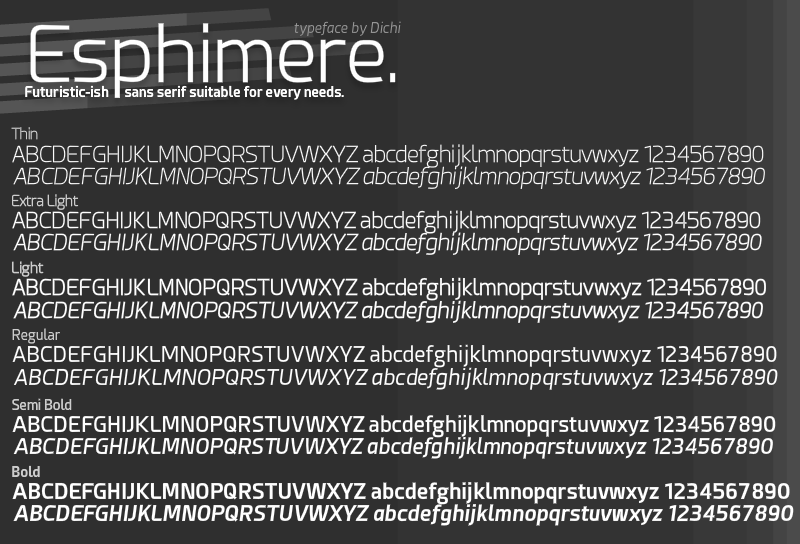
Font name: | Esphimere |
Author: | Dichi |
Note by Dichi | |
Font with futuristic-ish looks. Grab it now! [UPDATE] Fixed some weirdly shaped glyphs and misaligned points, especially on bolder font (sorry about that!) |